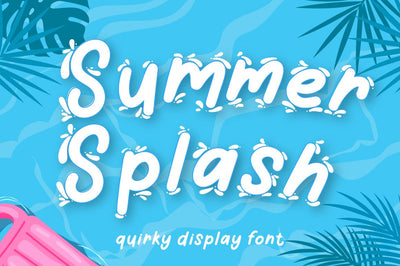
Summer splash
Summer Splash is display font of splashing water, come up with two font regular and display.
Summer Splash is a display font, this font is perfect for branding, logo, invitation, stationery, social media post, product packaging, merchandise,
blog design, game titles, cute style design, Book/Cover Title and more.
- include 6 ligatures